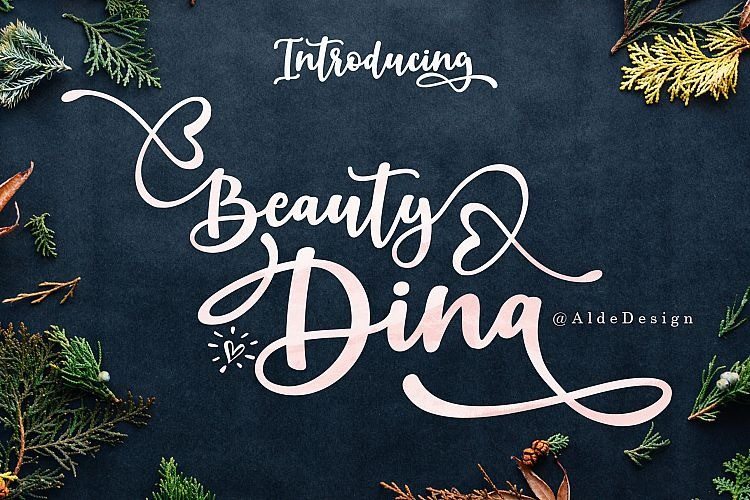
Beauty Dina is a stunning script that will add a beautiful feel to your next crafting project.
Beauty Dina with natural handwriting touch is suitable for you who needs a typeface for Headline, Apparel, Invitation, Branding, Wedding, Logo Design, Lettering, Logotype, Clothing, Poster, Magazine and other design project.